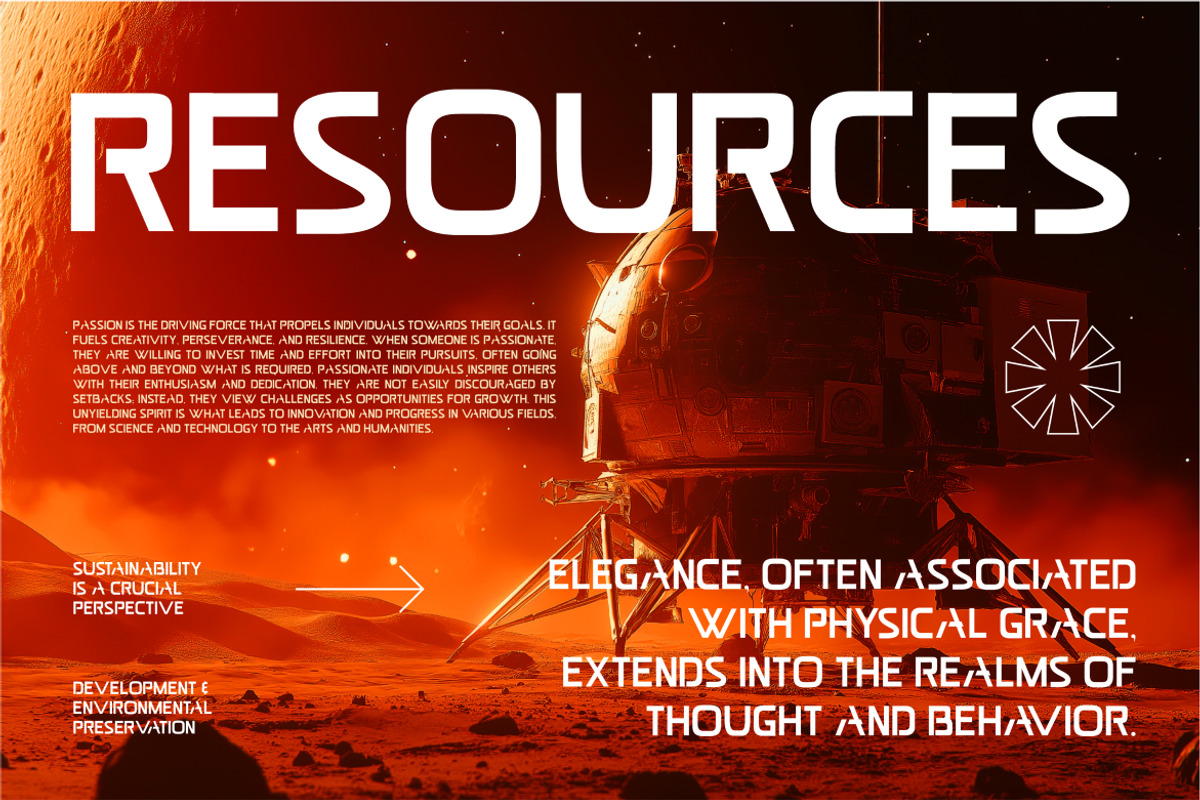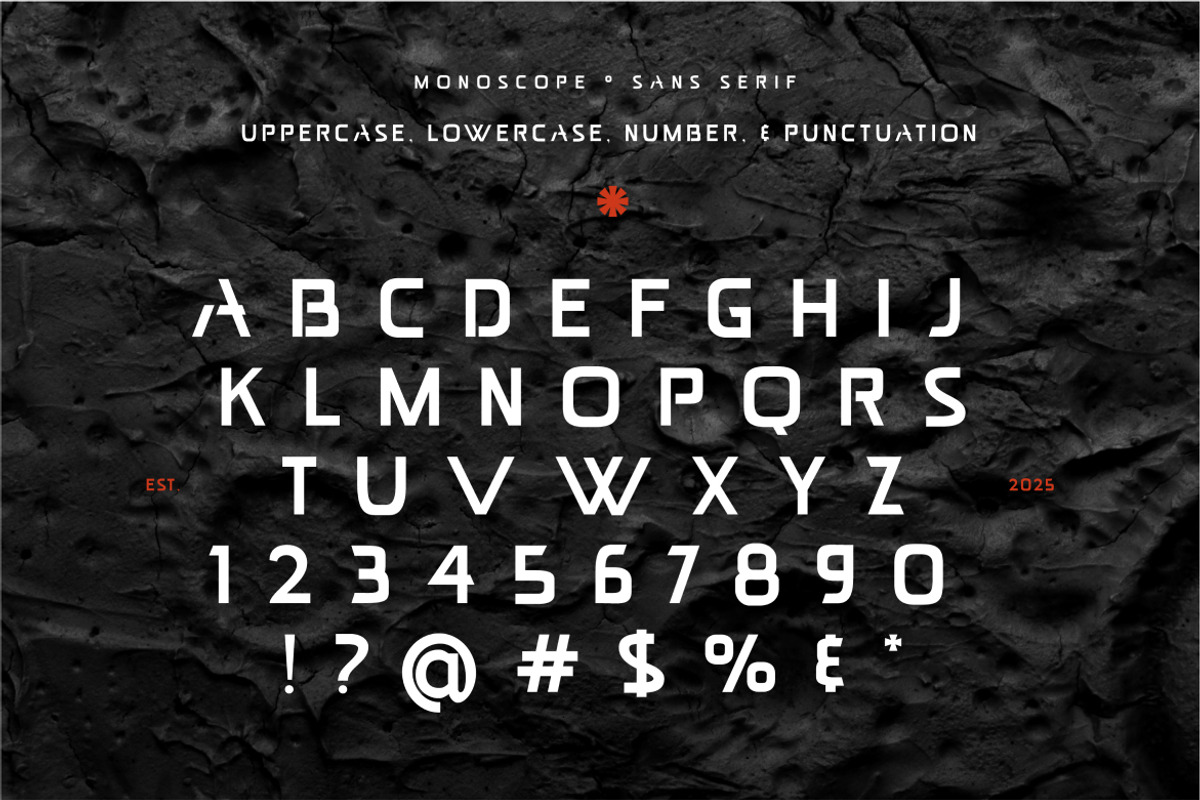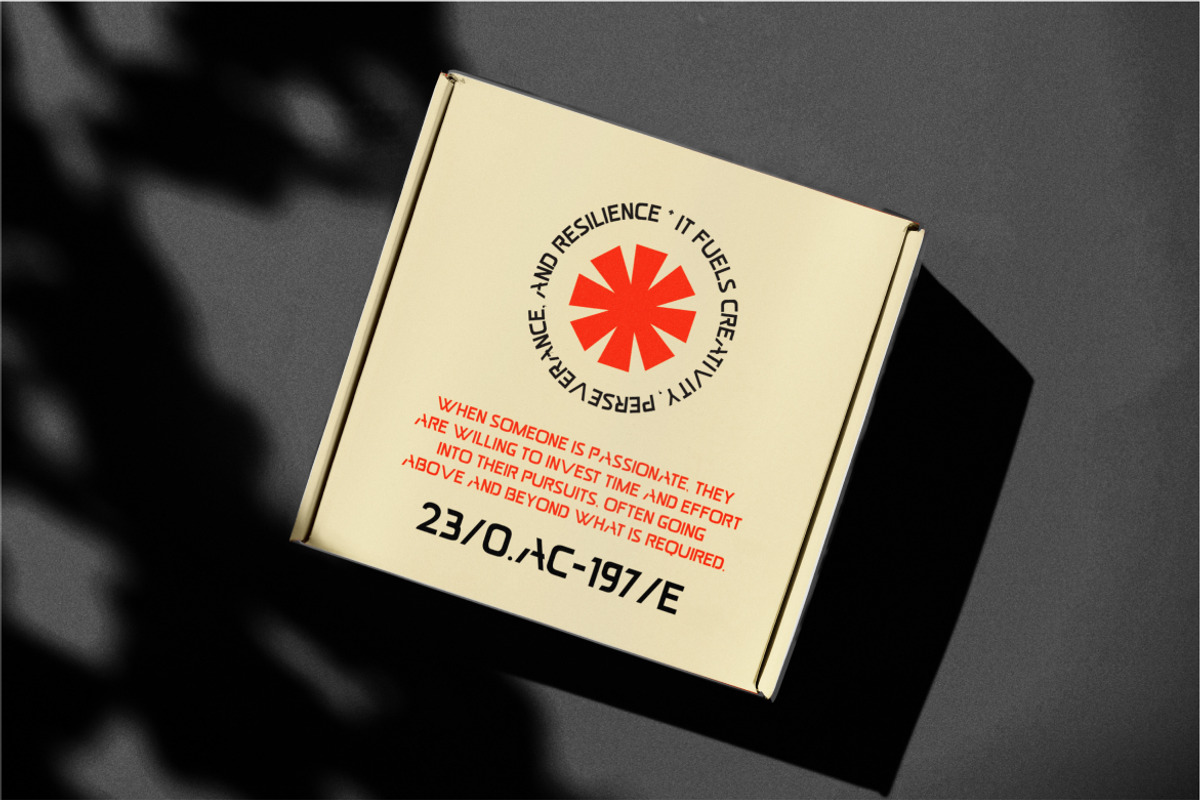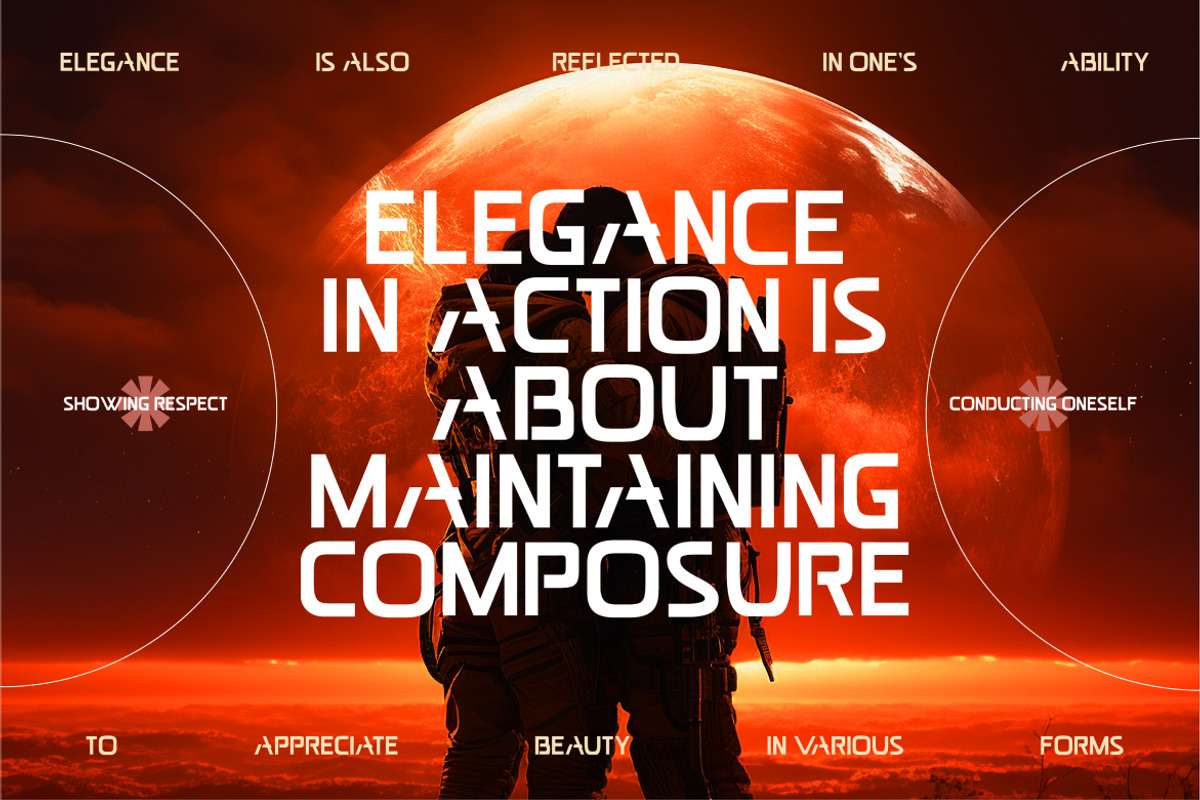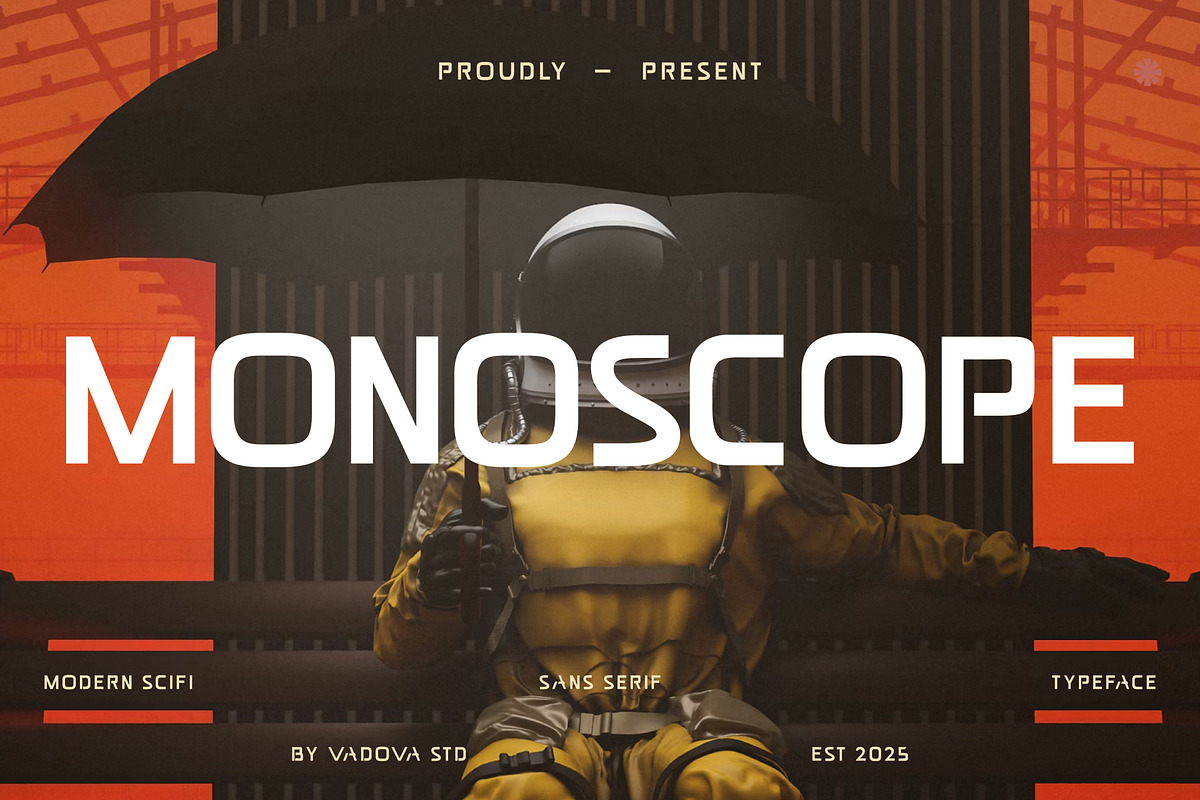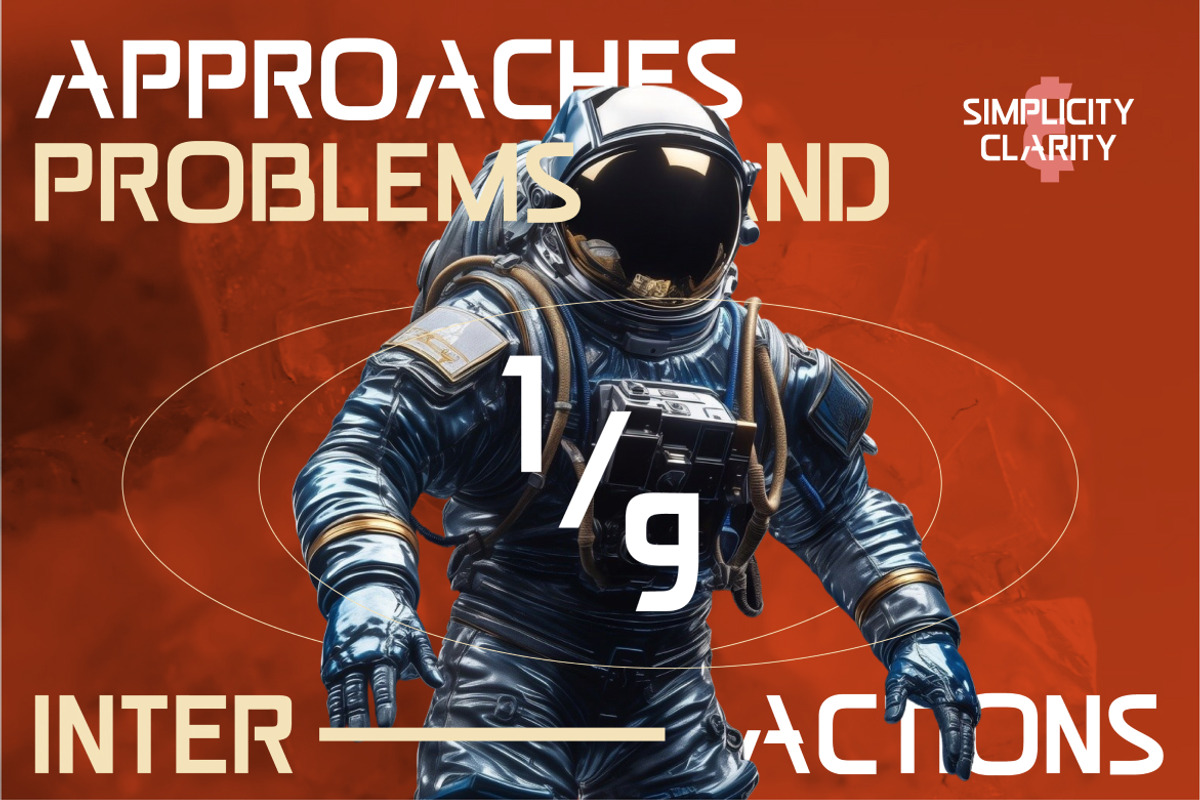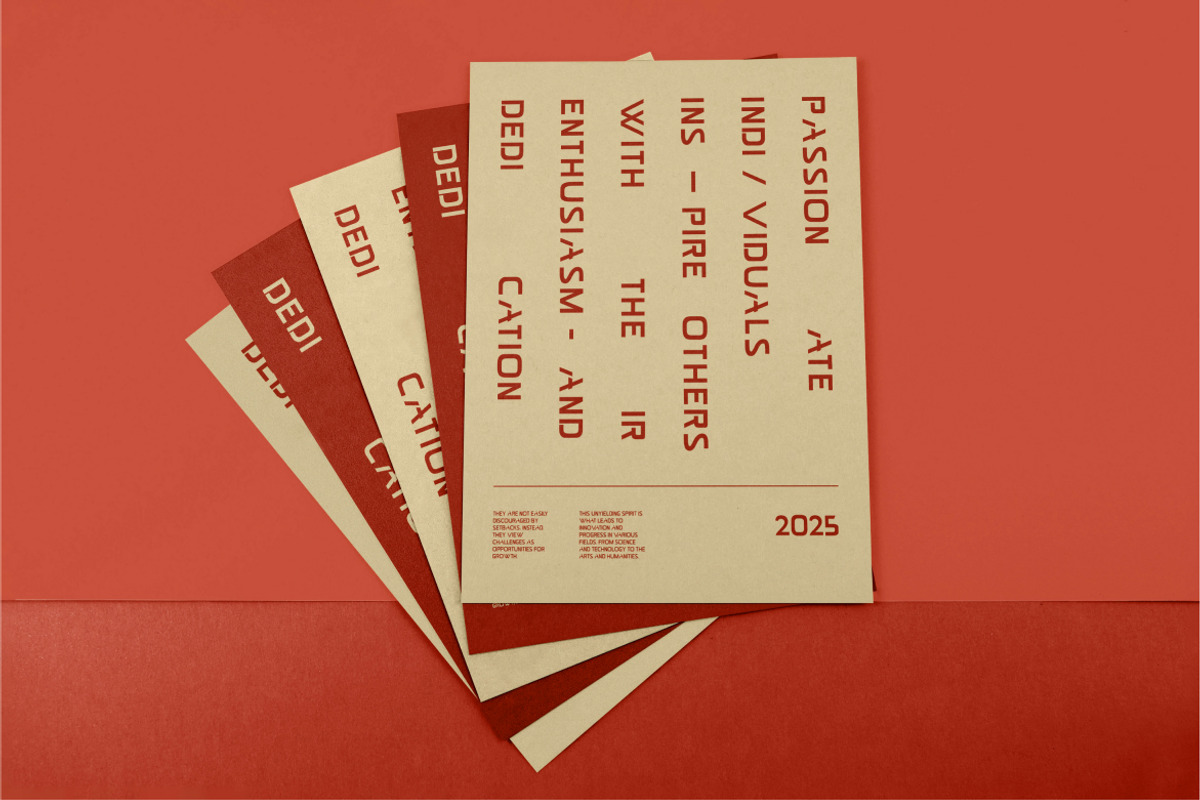
Monoscope – Modern Sci-Fi Sans Serif
Monoscope is a modern sci-fi sans serif font that blends bold futuristic design with minimal geometric precision. Designed for projects that aim to stand out with a tech-inspired and cinematic feel, Monoscope offers powerful typography with sharp edges and sleek curves.
Perfect for gaming titles, sci-fi posters, technology branding, UI/UX, esports, and futuristic advertising, this typeface brings a bold vision of tomorrow into your creative work.
Highlights
Modern sci-fi sans serif style
Bold, clean, and futuristic look
Perfect balance of sharp edges and smooth curves
Strong readability across print and screen
Best Uses
Gaming Titles & Esports – futuristic and energetic branding
Cinematic Posters – sci-fi, dystopian, and action film titles
Technology & Startup Branding – innovative and modern identity
UI/UX Design – futuristic and sleek interfaces
Advertising & Marketing – bold futuristic visuals
Merchandise & Apparel – modern prints for fashion & accessories
With Monoscope, your projects will carry a sci-fi futuristic edge — perfect for designs that look toward the future.